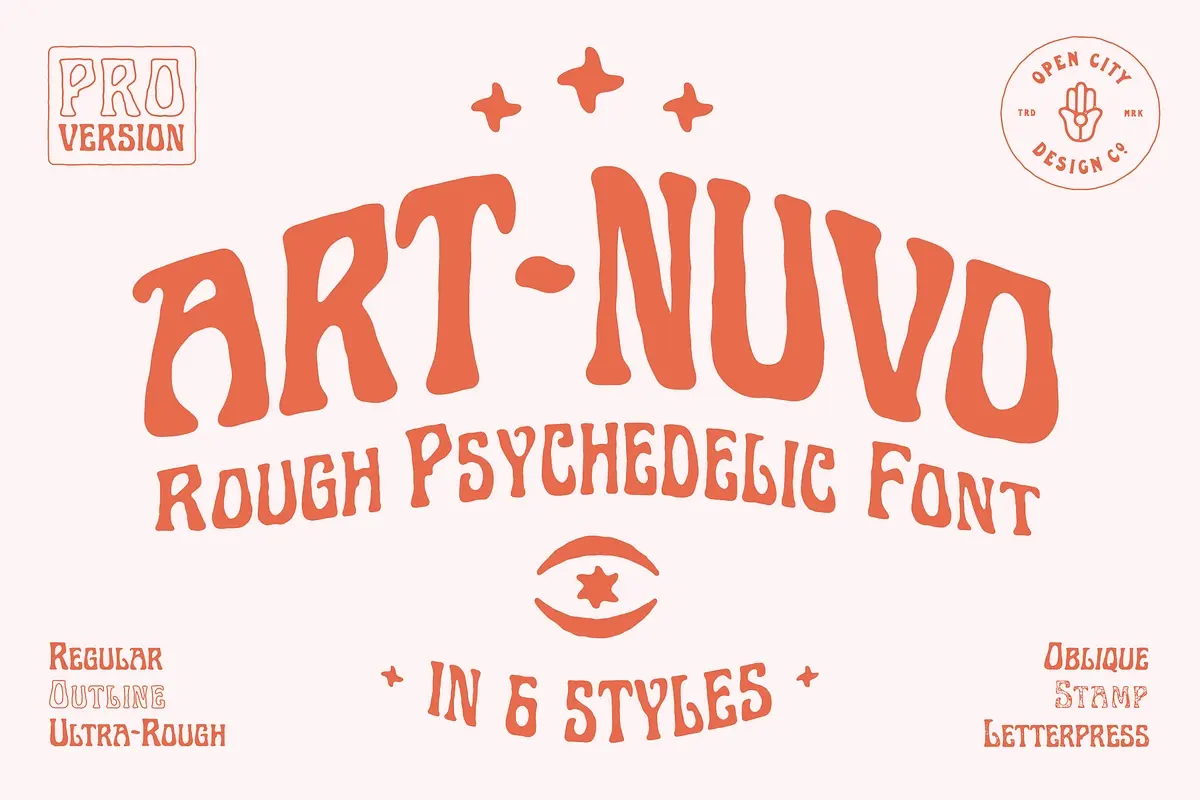
Art-Nuvo – Rough Psychedelic Font Free Download is a wild and expressive display typeface that fuses the ornate vibes of Art Nouveau with the groovy energy of psychedelic design. Featuring wavy lines, flowing forms, and a hand-drawn rough texture, this font is perfect for retro posters, music festival branding, vintage-inspired apparel, album covers, and creative projects that need a bold, trippy aesthetic.
Art-Nuvo – Rough Psychedelic Font Free Download captures the spirit of the 60s and 70s while adding a gritty, handcrafted edge. Its unique letterforms are best suited for eye-catching headlines, title treatments, and bold visual statements that channel freedom, rebellion, and creativity.